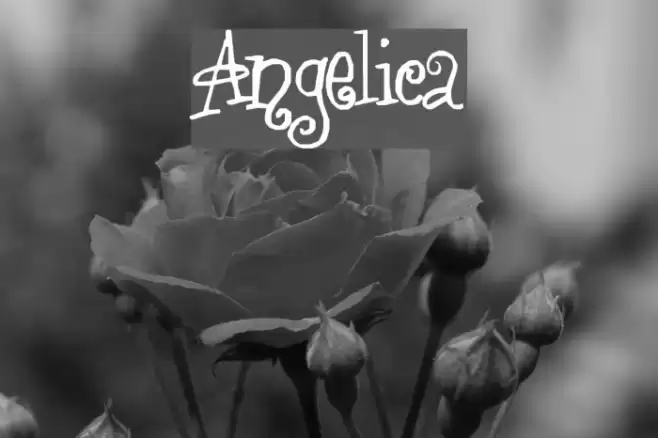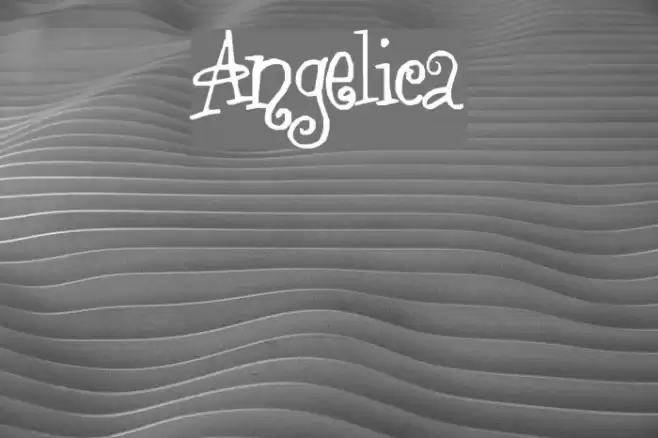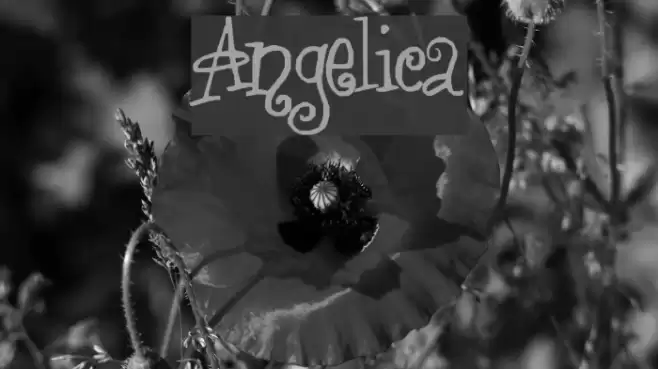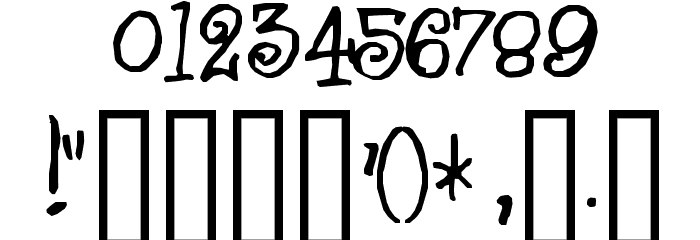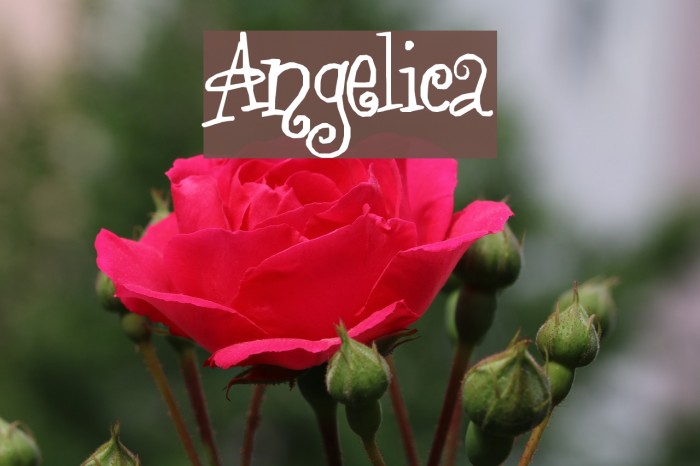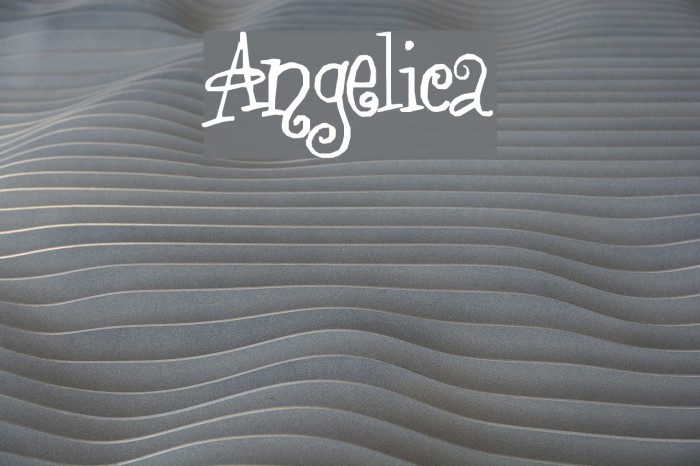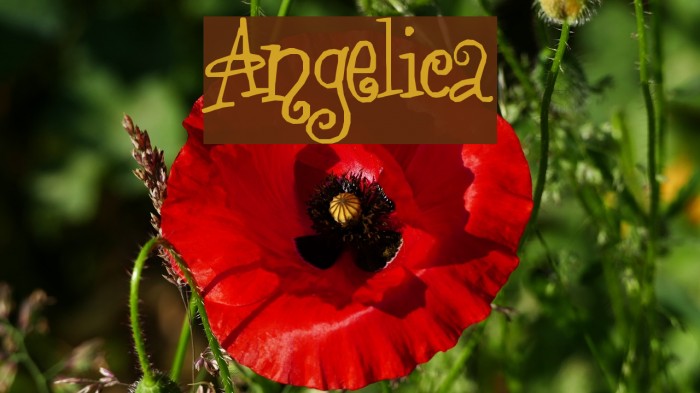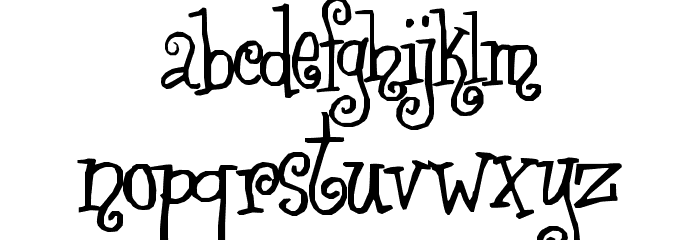
Angelica Font
Angelica Description
This font features a whimsical and playful design with a hand-drawn aesthetic. The letters are characterized by their curly and ornate details, giving them a unique and artistic flair. The uppercase letters are bold and prominent, while the lowercase letters maintain a consistent style with additional decorative elements. The numbers follow the same playful theme, making them stand out with their creative loops and swirls. The special characters are equally decorative, adding to the overall charm of the font. This font is perfect for projects that require a touch of creativity and individuality.
A whimsical, hand-drawn font with curly, ornate details from Script fonts.
- Proposed Projects: Ideal for children's books, greeting cards, playful branding, and creative posters.